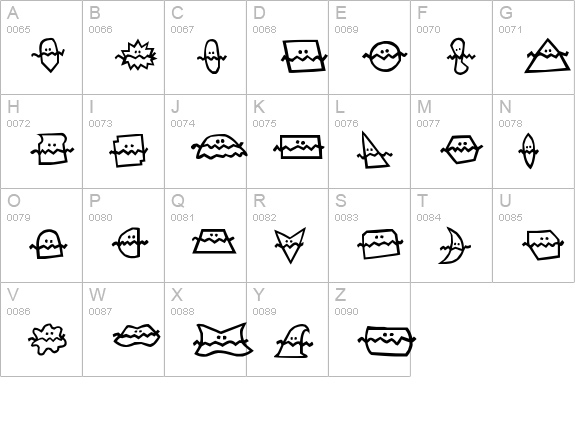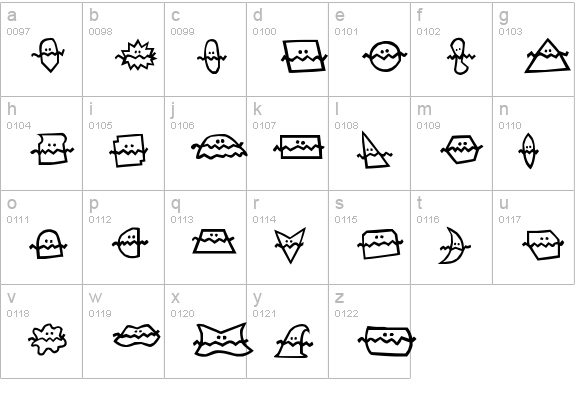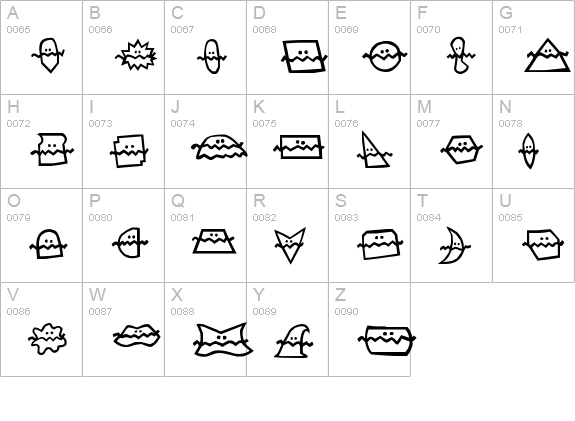
Do i lie Font Details
Introducing the captivating and versatile Do i lie font! This unique typeface combines modern elegance with a touch of playfulness, making it perfect for a wide range of design projects. Whether you're creating a stylish logo, designing eye-catching posters, or crafting engaging social media graphics, Do i lie font is sure to make your text stand out. The best part? This amazing font is available for free download at FontsMarket.com! Yes, you read that right - you can enhance your designs with the beauty of Do i lie font without spending a dime. So why wait? Add this stunning font to your collection today and let your creativity soar to new heights!